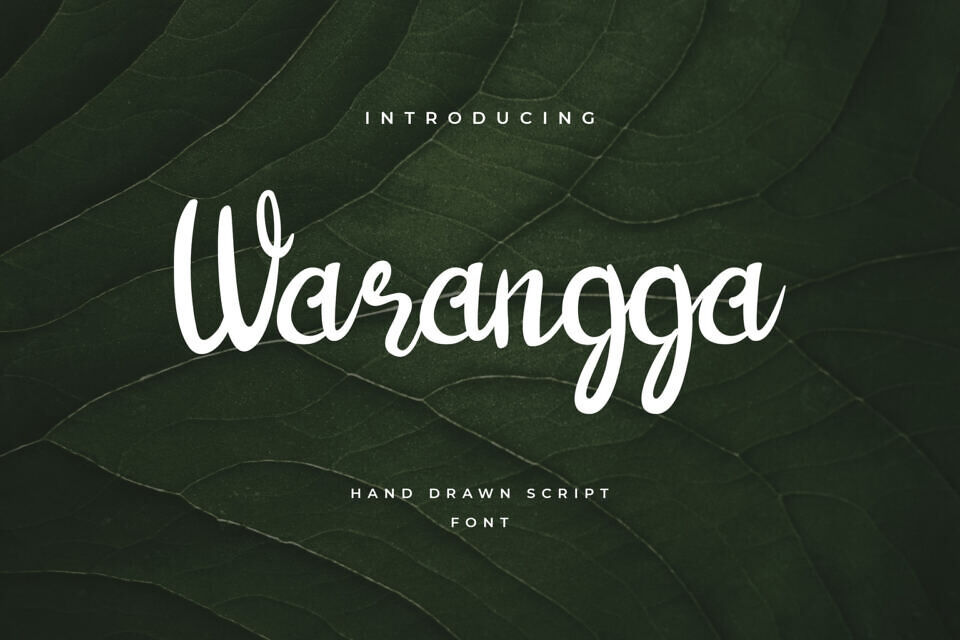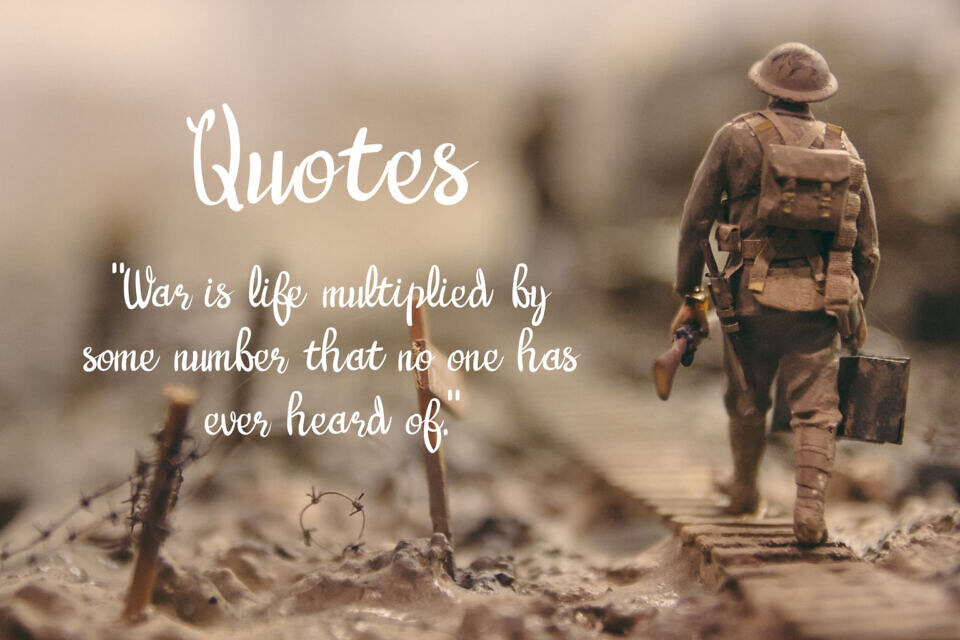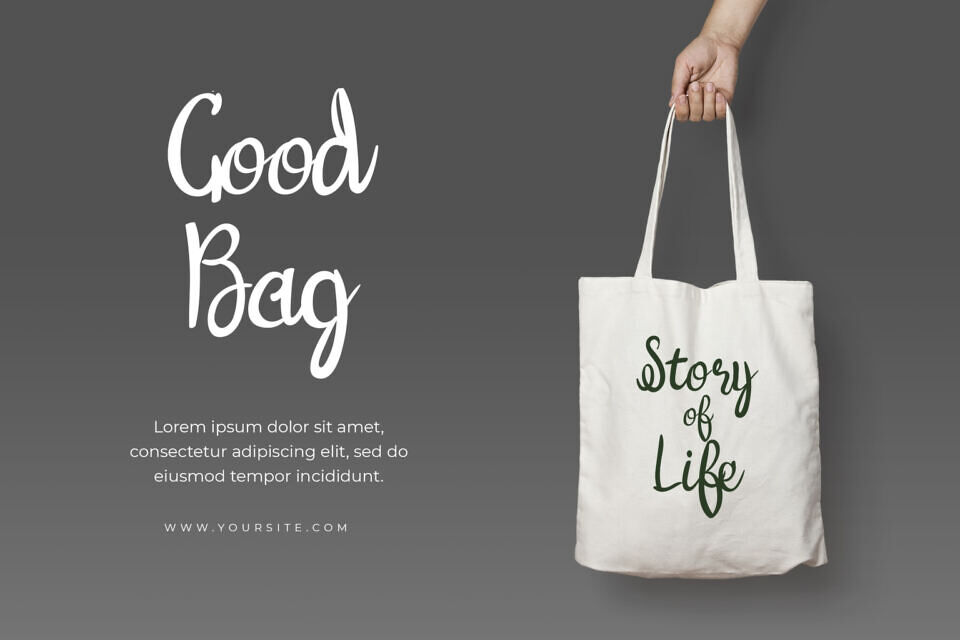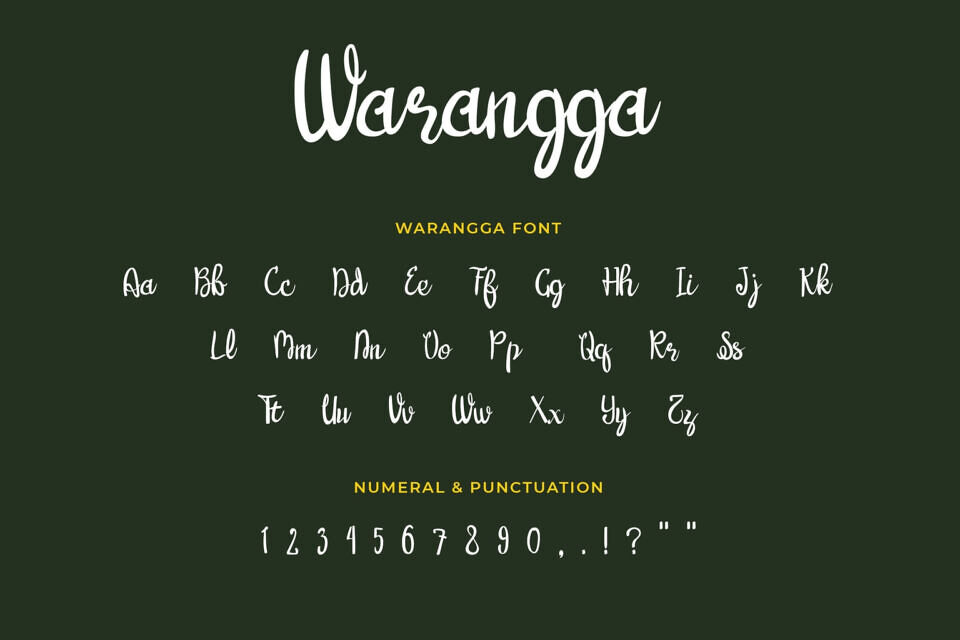
Warangga is a font made from continuous and circular handwriting inspiration. With a distinctive letter design, and gives a classic, natural, and artistic feel. Suitable for writing branding, wedding invitations, greeting cards, posters, craft products, T-shirts, event projects & logos, merchandise, social media posts, product packaging, and more.